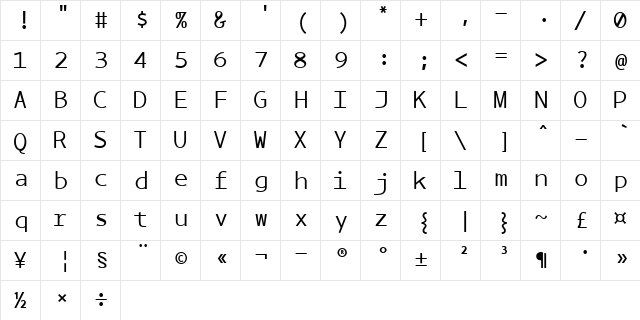
BPmono Regular
Design Context for BPmono Typeface
BPmono brings the precise, column-aligned rhythm of monospaced typography to designs that value technical clarity and systematic order.
Well-suited to data-driven dashboards, coding tutorials, and any design that wants to reference the world of programming.
Pro Tip: Use BPmono with slightly increased line-height for extended reading — fixed-width spacing can feel dense in longer passages without extra breathing room.